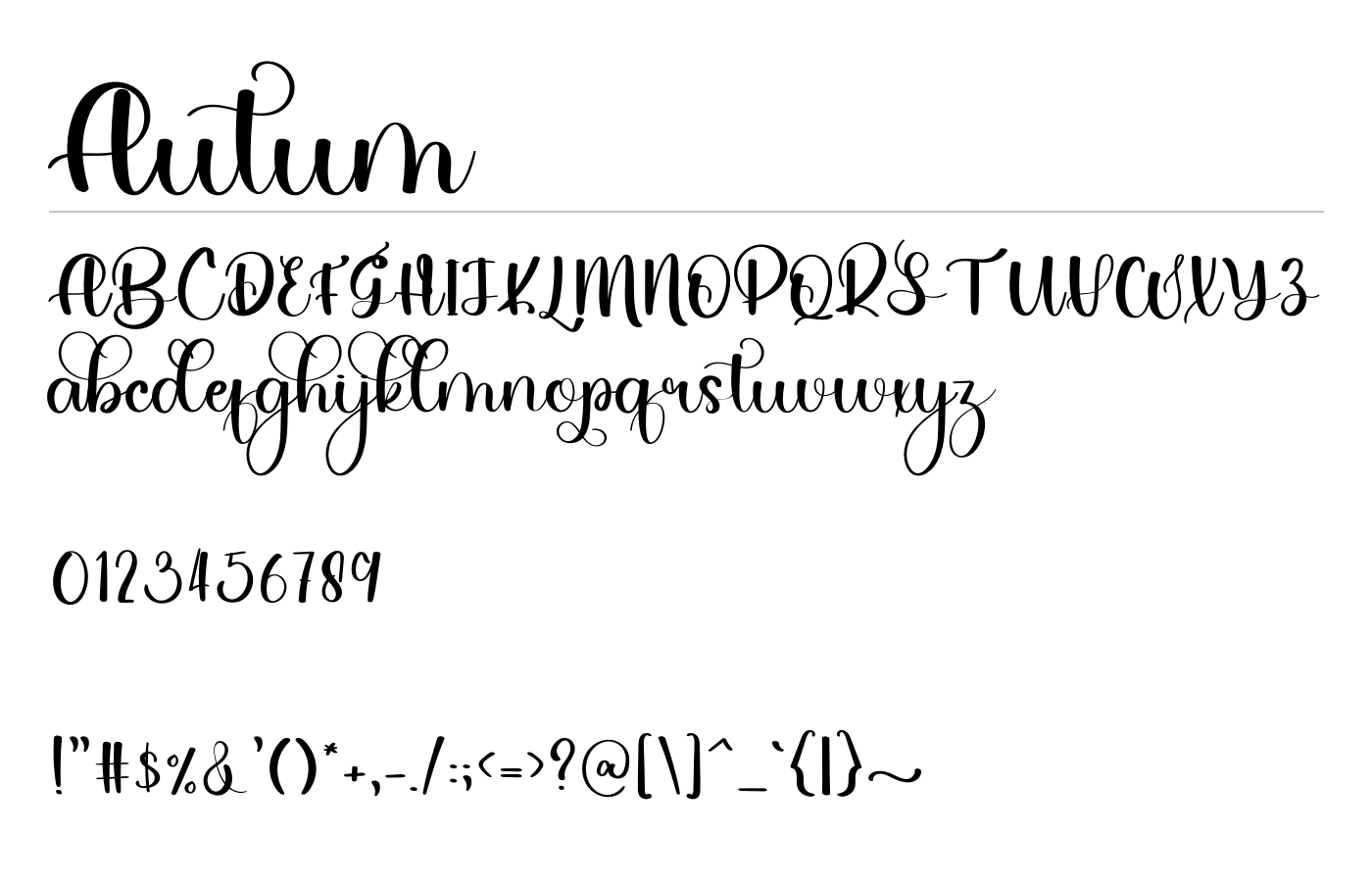
Autum is a playful and elegant script font characterized by its flowing, hand-drawn style with whimsical swashes and curls that add a personal, artistic touch. Its light to regular weight and tall, graceful letterforms make it perfect for creative branding, invitations, and headlines where a warm, approachable, yet stylish feel is desired. This font works best in contexts that need a delicate, decorative accent, such as fashion logos, greeting cards, and boutique packaging.
Autum Font
About Autum Font